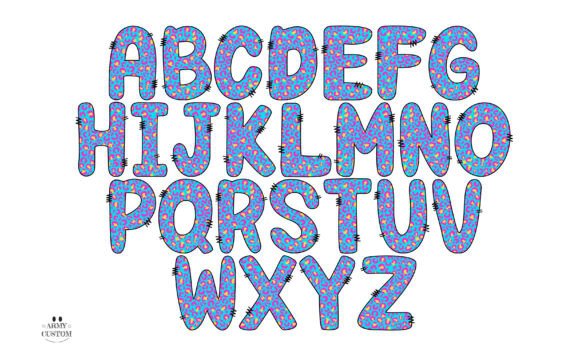
Brightarmy Check Font
Bright Bundle OTF – 90s Kid Color Font Collection
Step into a world of playful nostalgia with the Bright Bundle OTF, a bold and energetic color font collection inspired by the iconic style of the ’90s. This font bundle features four distinct, high-energy styles, each bursting with color, personality, and attitude—perfect for designs that need to stand out and spark joy.
Each character is uniquely patterned and stitched with a playful outline, giving the font a patchwork feel reminiscent of retro stickers, DIY crafts, and childhood whimsy. From bubbly polka dots to electric leopard prints, floral explosions, and checkerboard madness, every letter tells a vibrant story.